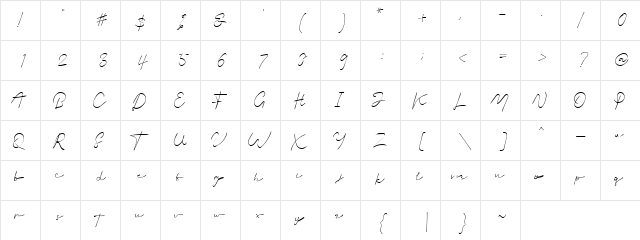
Murnita Regular
Design Context for Murnita Typeface
Murnita is a composed and adaptable typeface that performs quietly and consistently across a wide range of design contexts.